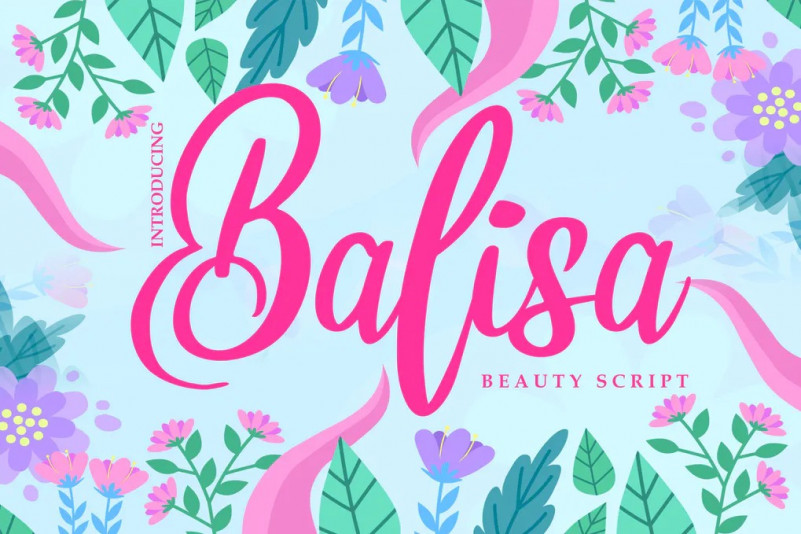
Balisa Font
Balisa Beauty Script – is a new font that is authentic and suitable for many of your visual needs, like for invitation, greeting cards, branding materials, business cards, quotes, posters, and more!